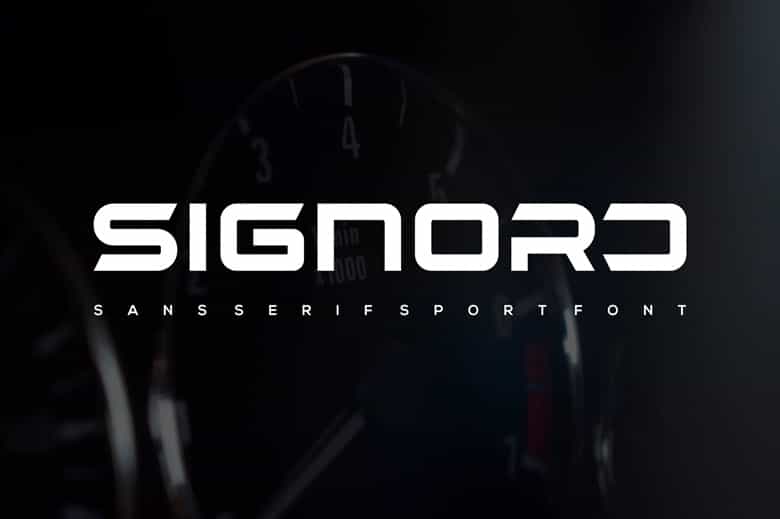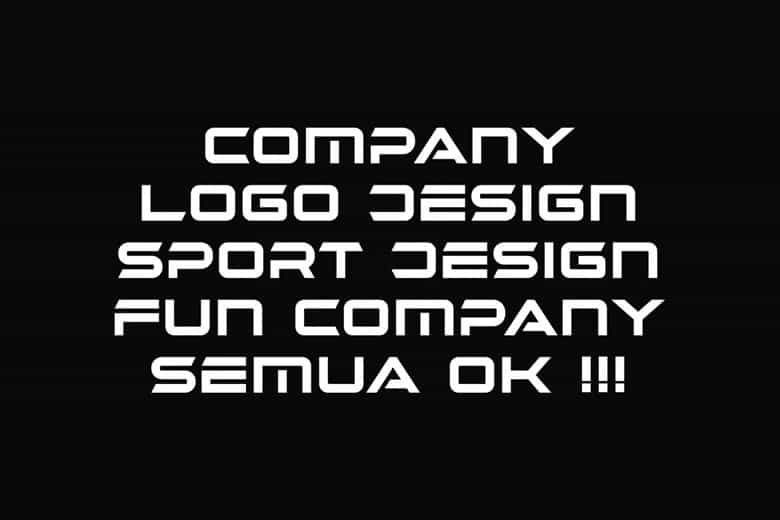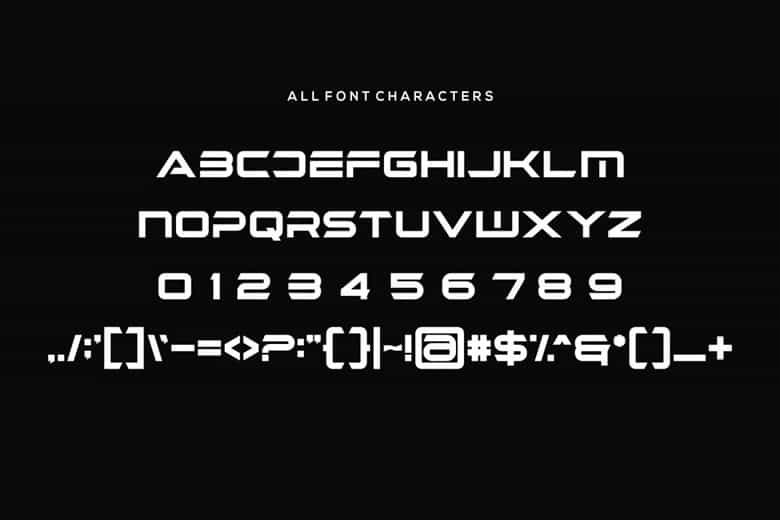
Signord is a bold and authentic sans serif sport display font. It is well suitable to be used in branding projects like logos, esports etc. It is equally stylish in many different settings.